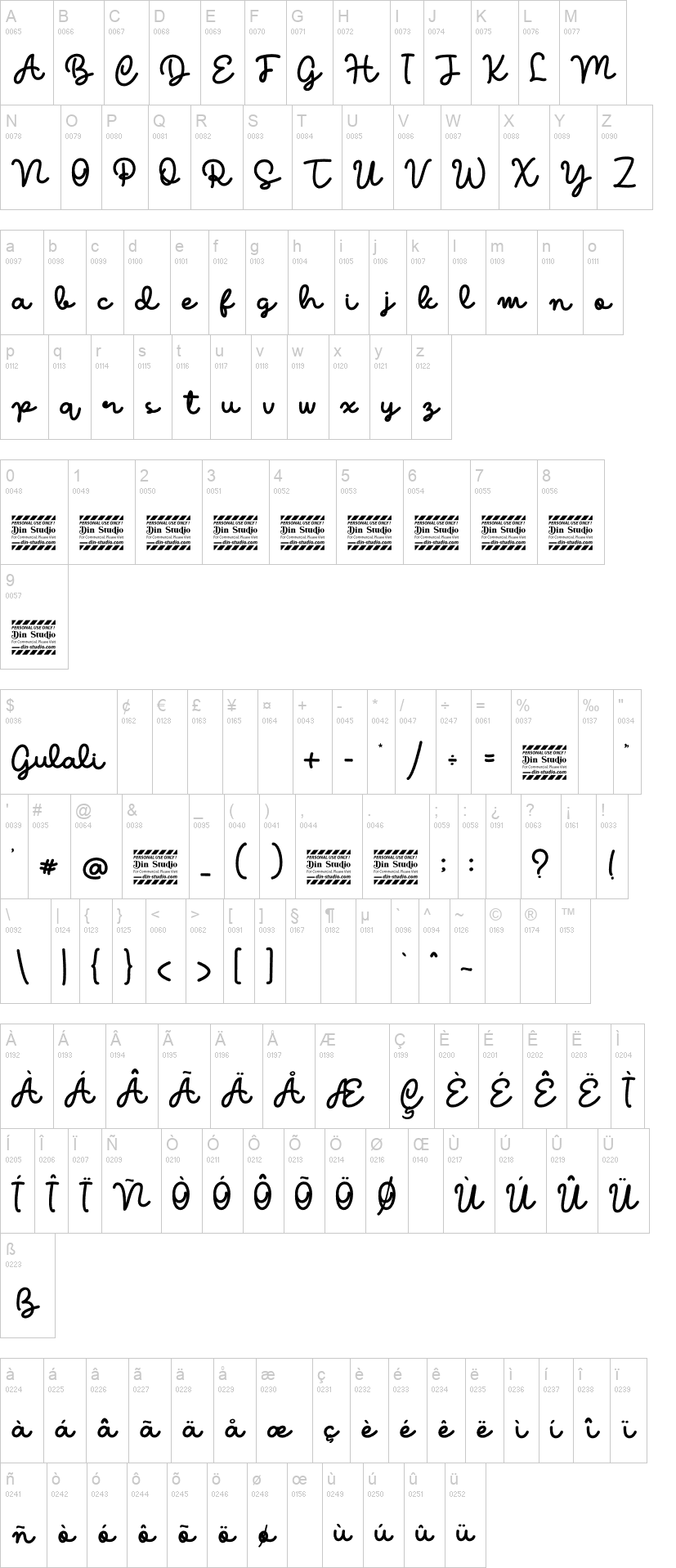
Need a sweet and adorable font for your project design?
Gulali Script is the right answer!
Gulali Script is suitable for many projects design especially for a branding project, wedding, and lettering.